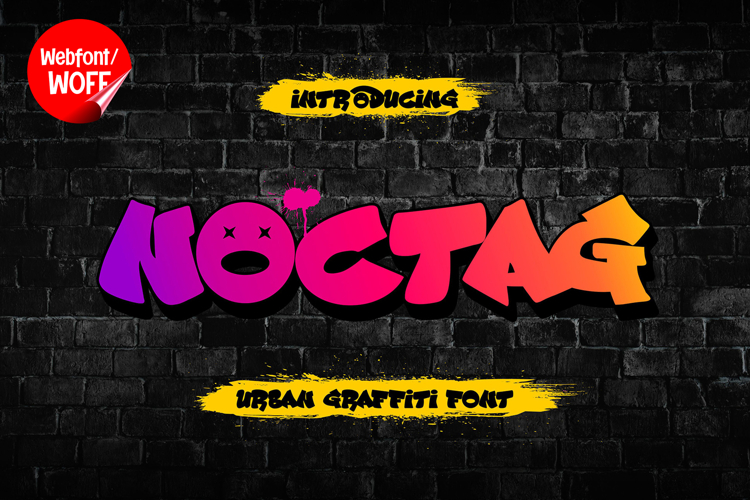
Noctag | Thick Bold Graffiti Webfont for Urban Websites
Noctag is a thick and bold graffiti webfont designed to bring strong urban character and visual impact into website design. Inspired by street art culture, this font features heavy strokes and solid shapes that create a powerful and confident appearance. It is an excellent choice for designers who want to add a bold, edgy, and modern graffiti style to digital projects.
Noctag includes a full set of uppercase characters, designed with strong proportions and balanced spacing. These bold letterforms are ideal for headlines, banners, hero sections, and featured content. The thick structure helps create a clear visual hierarchy, making important text stand out and easy to notice. It is especially effective for grabbing attention in high-impact areas of a website.
In addition to letters, Noctag provides numbers and punctuation, allowing for versatile usage across various elements. It can be used for pricing, promotional text, event details, and navigation components while maintaining a consistent visual style. Each character is crafted to match the bold graffiti aesthetic, ensuring a cohesive design throughout the layout.
With multilingual support, Noctag includes a wide range of accented characters, making it suitable for international websites. This allows content to be presented clearly across different languages while maintaining the same strong and expressive style. It is a reliable option for global brands, creative agencies, and digital platforms.
The thick and bold design of Noctag makes it perfect for urban-themed websites, streetwear brands, music platforms, gaming interfaces, and creative portfolios. Its heavy strokes create a sense of strength and energy, helping websites stand out in competitive digital spaces. The graffiti influence adds authenticity and personality, making designs feel more dynamic and visually engaging.
Despite its bold appearance, Noctag is designed with readability in mind. The spacing and structure of each character are carefully balanced to ensure clarity in digital use. This makes it suitable not only for large display text but also for short interface elements where readability remains important.
Noctag is a webfont that combines strong visual presence with practical usability. Its bold graffiti style delivers impact while maintaining clarity, making it a valuable addition to modern website design. For projects that require a powerful, urban, and attention-grabbing look, Noctag provides the perfect typographic solution.